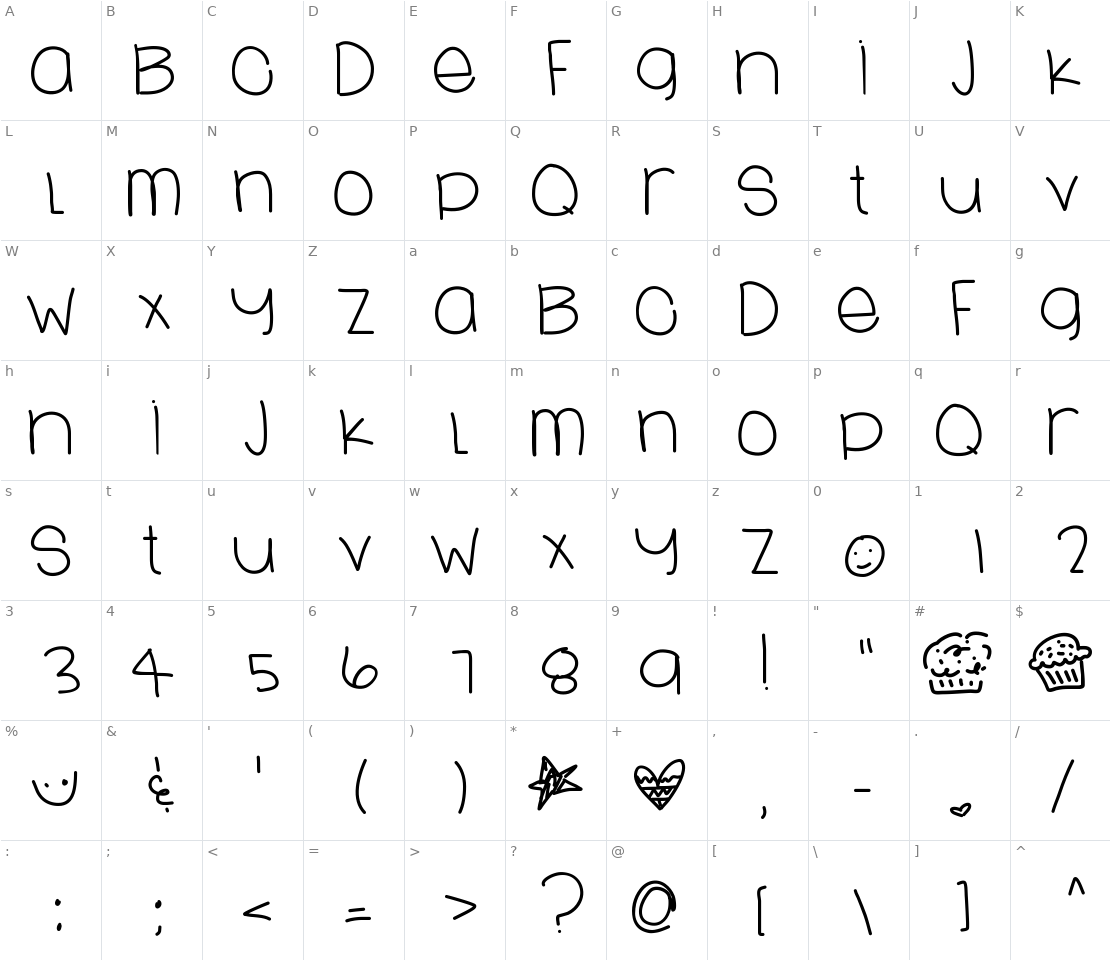
Love Sweets
by Des Gomez
Love Sweets is a light, airy handwritten face from Des Gomez with thin, flowing strokes that feel romantic and effortlessly feminine. The letterforms have a whimsical looseness to them, like someone writing in a greeting card with a fine-tipped pen. It works naturally for invitations, personal branding, packaging, and editorial accents where you want something delicate and warm without being overly precious.